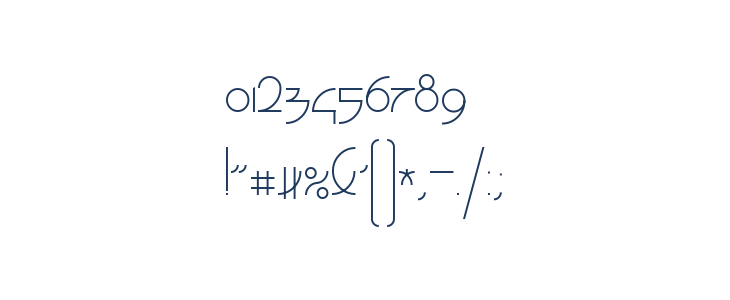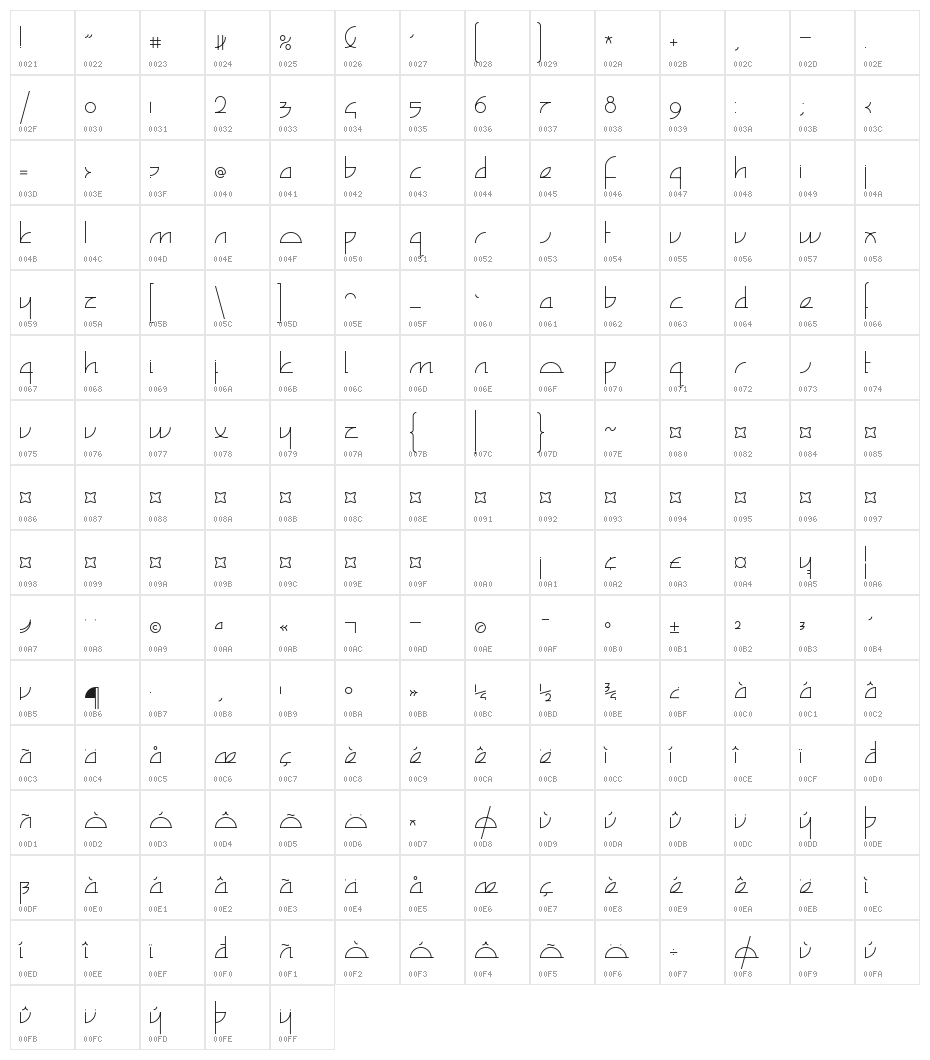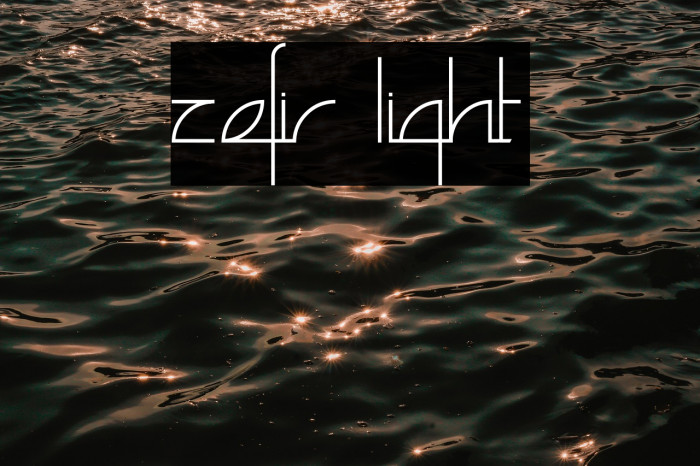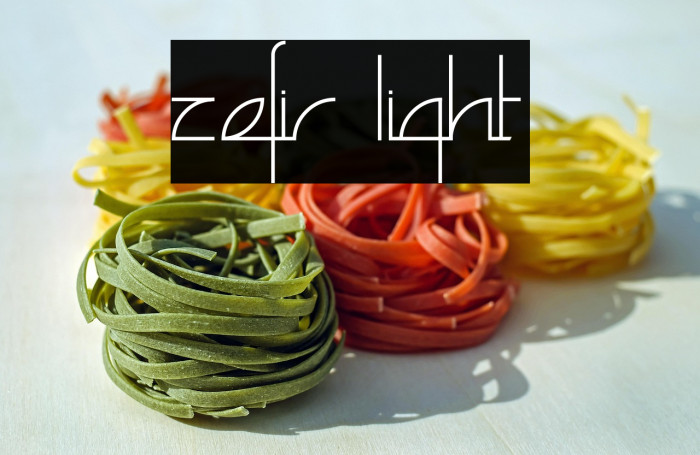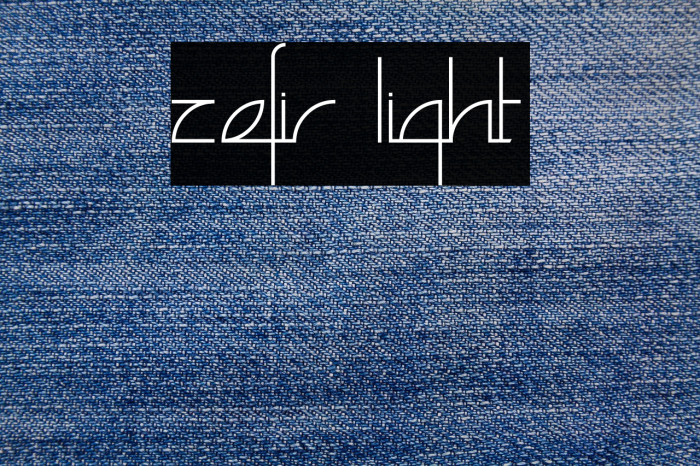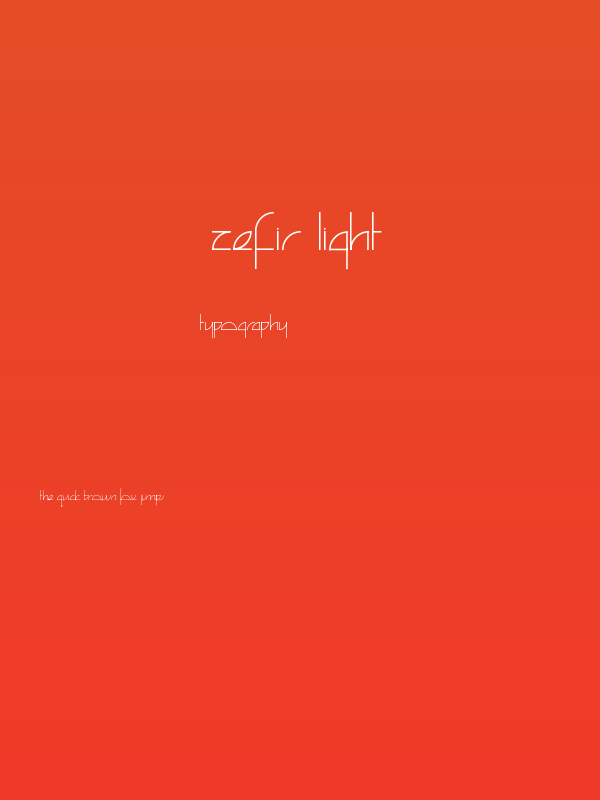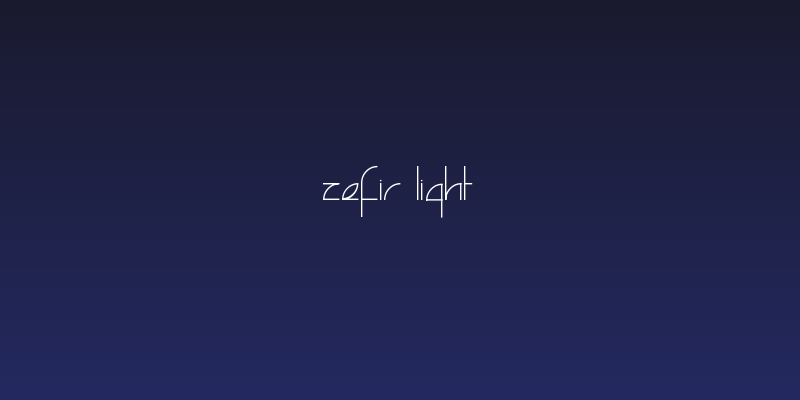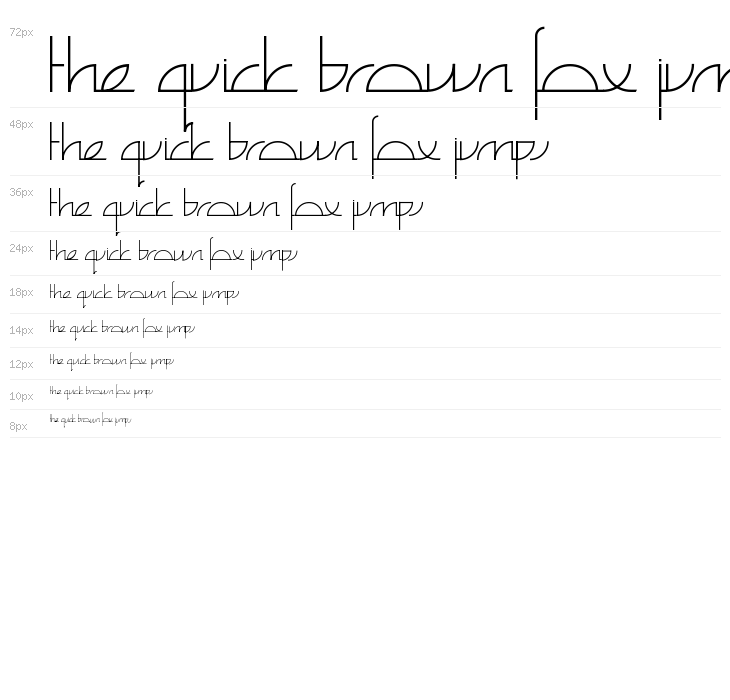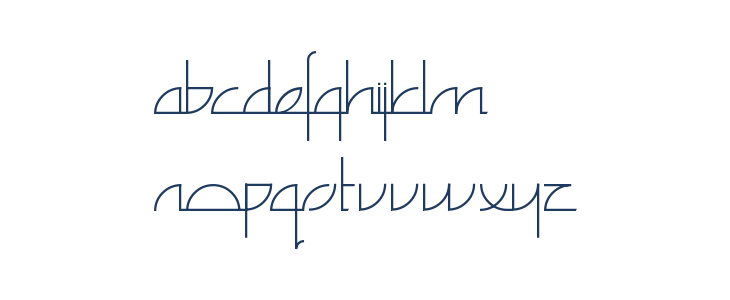
Zefir Light Font
Zefir Light Description
This font features a sleek and modern design with a distinct geometric flair. The characters are composed of thin, uniform lines that give it an airy and light appearance. The uppercase and lowercase letters share a consistent style, with rounded edges and a minimalist aesthetic. The numbers and special characters maintain this cohesive look, ensuring versatility across different uses. Its unique style makes it stand out, yet it remains highly legible. The font's design is both contemporary and elegant, making it suitable for a variety of creative applications.
| Use Case | Logos, Headlines, Editorial design |
| Proposed Projects | Ideal for branding, logos, modern web design, and editorial layouts. |